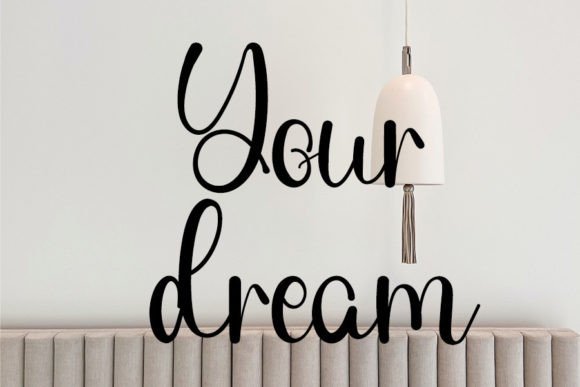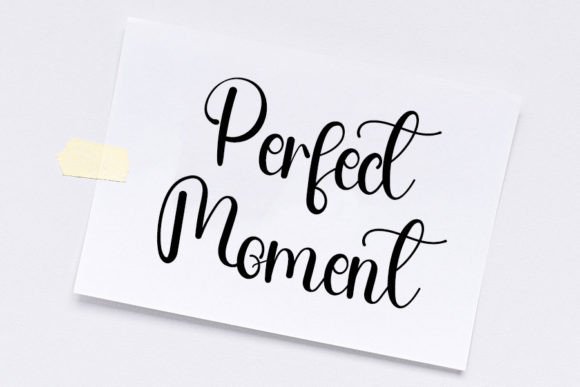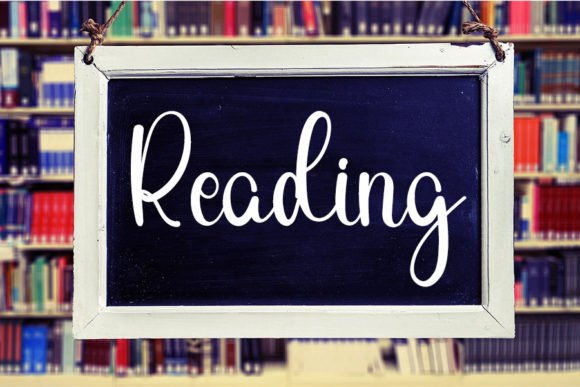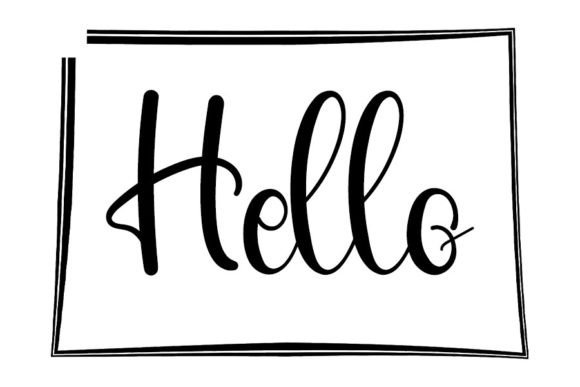
Introduction to Deep Font
Deep is a neat and beautiful handwritten font described by an elegant touch, perfect for your favorite projects.
Fall in love with its incredibly distinct and timeless style, and use it to create spectacular designs .